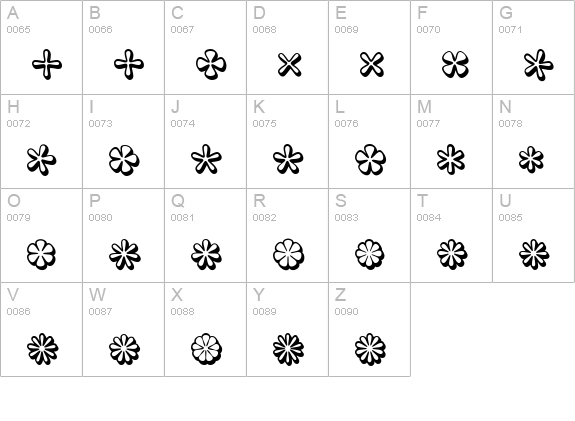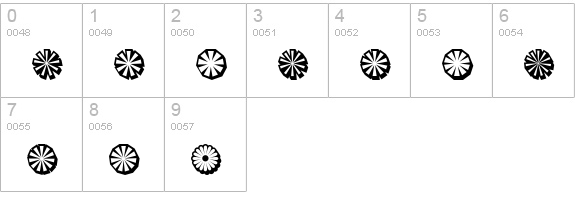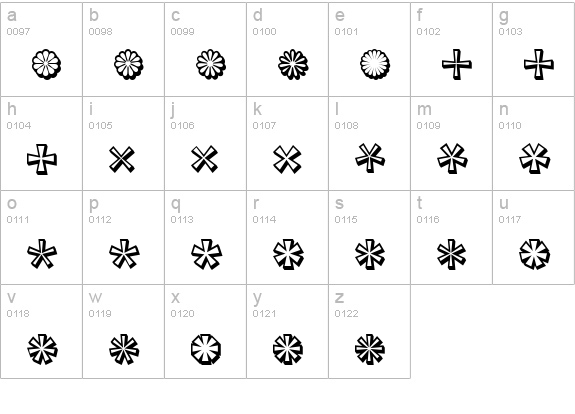
Asterisp Eta is a striking and versatile font that will elevate any design project to the next level. With its clean lines and modern aesthetic, this font is perfect for both digital and print applications. Whether you're designing a website, creating a logo, or working on a marketing campaign, Asterisp Eta will make your text pop. What's even better is that Asterisp Eta is completely free to download! You can get your hands on this stunning font at FontsMarket.com and start using it in your projects right away. Don't miss out on the opportunity to enhance your designs with the beauty and sophistication of Asterisp Eta. Download it today and see the difference it can make!